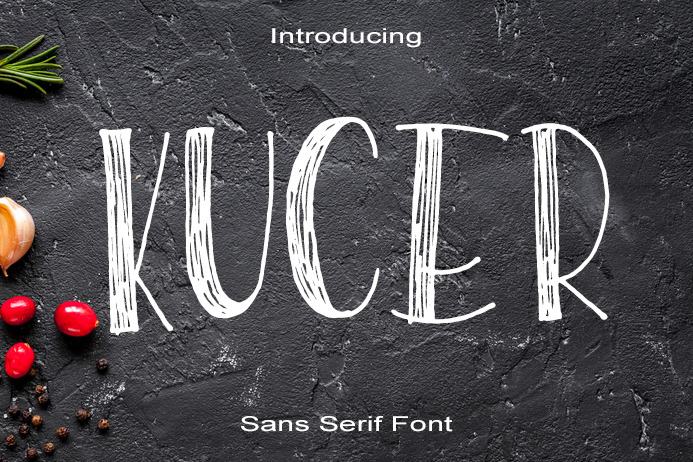
Kucer Typeface
A hand-written font designed to create entries in the diary or as occasional comments. It is universal and can be used in different projects where manual style is required. Suitable for the design of posters, websites, T-shirts, magazines, etc. You will find a font in OTF format. It is absolutely necessary to install it into your system without using additional software.